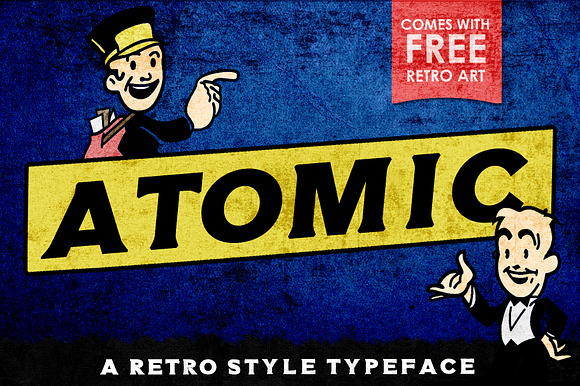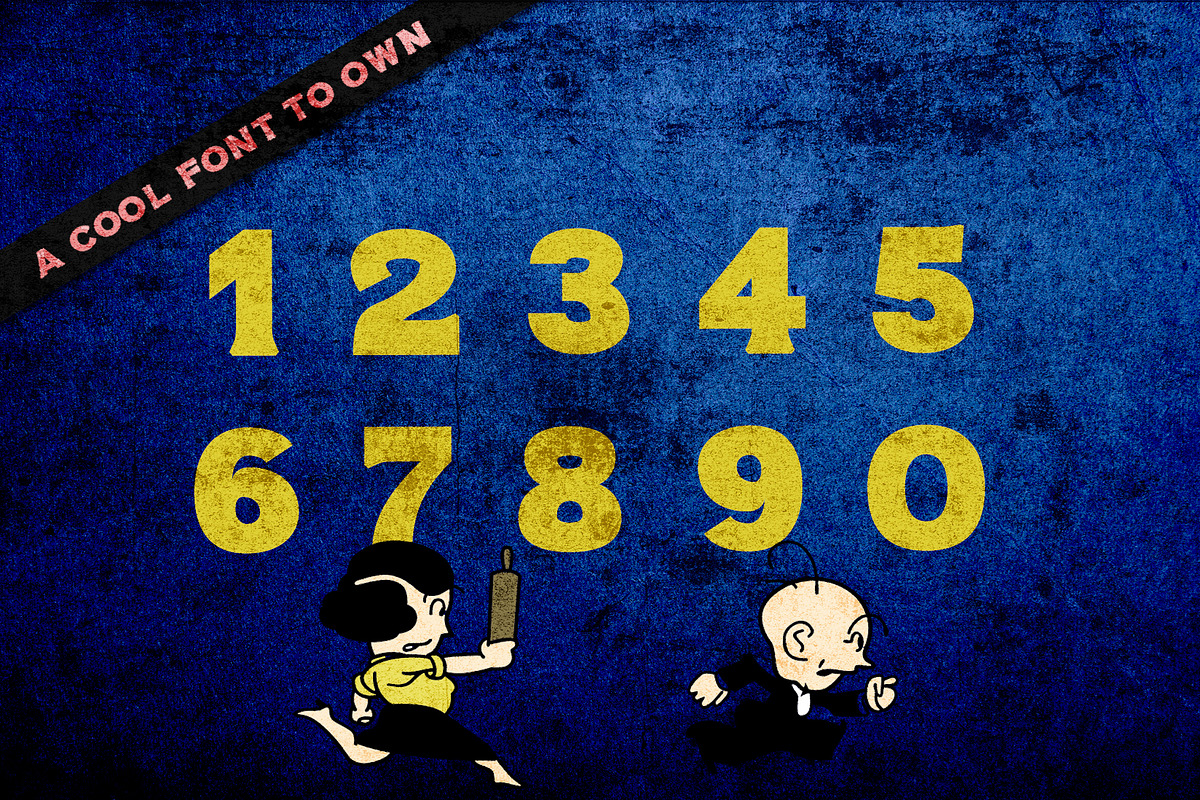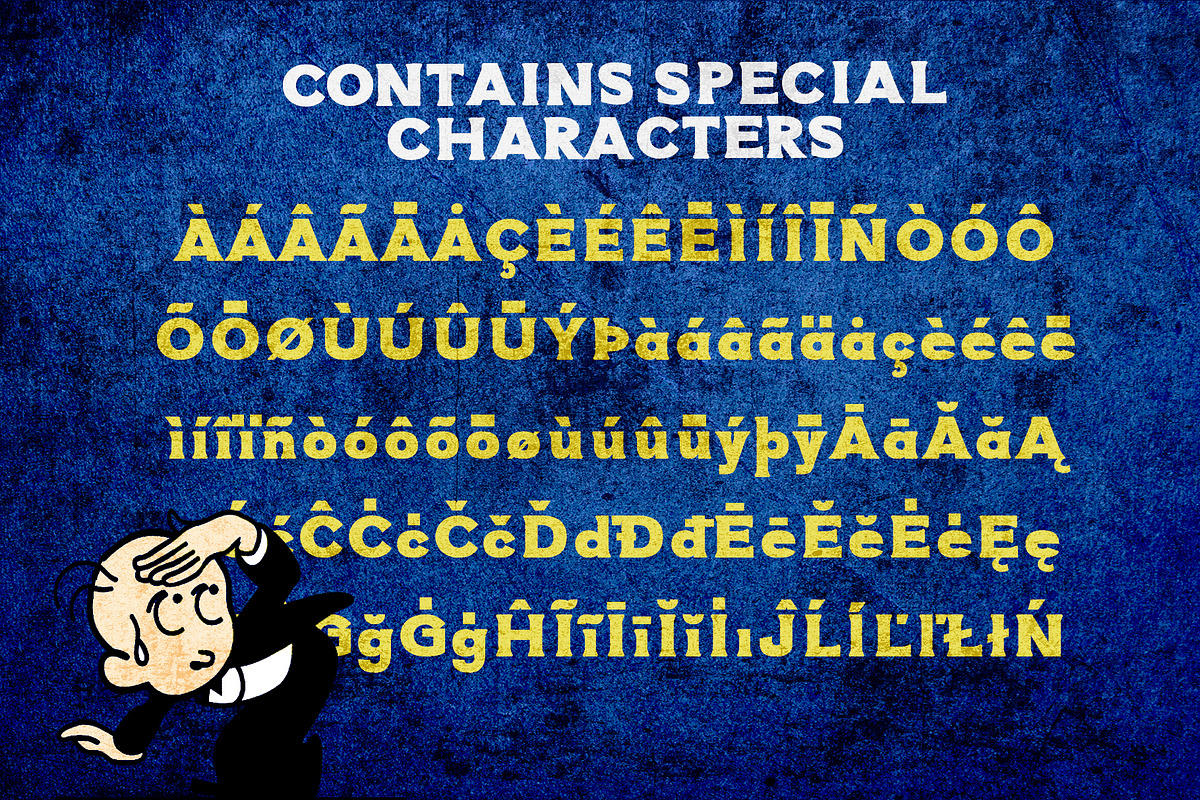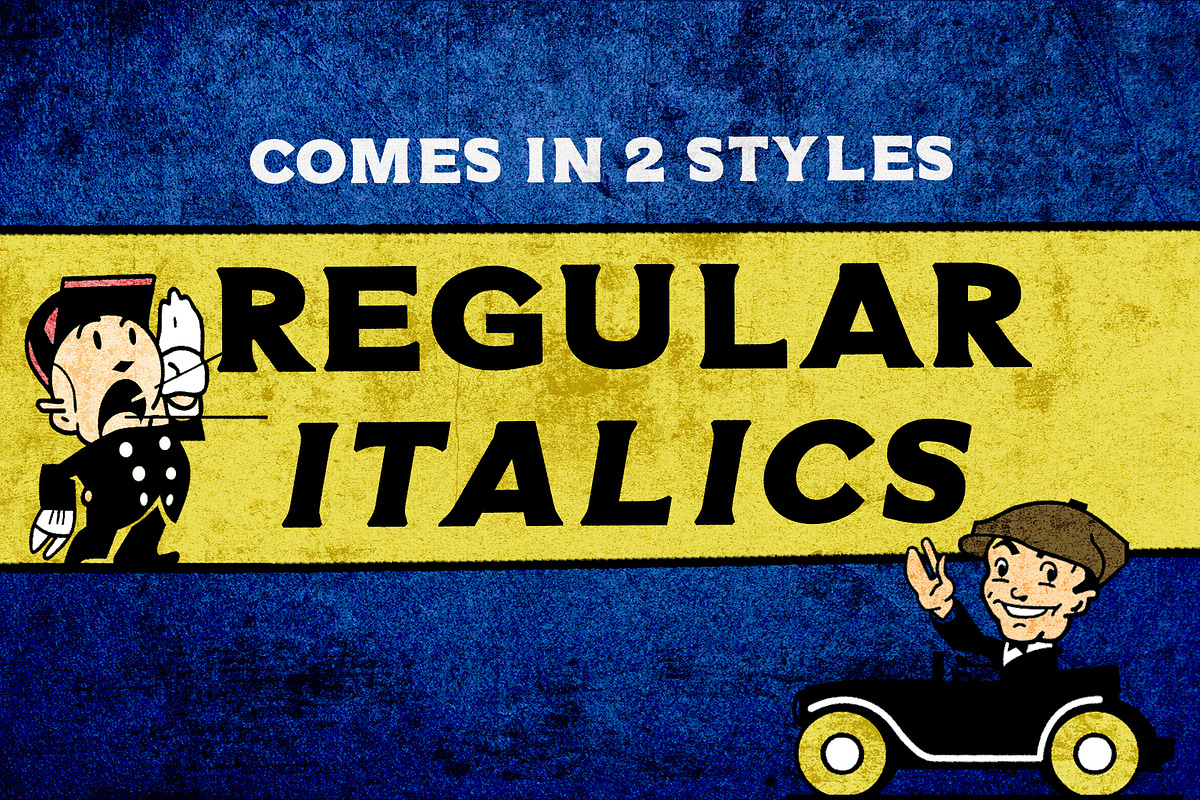
ATOMIC Typeface
Atomic is a unique and creative design that has been passionately handcrafted to give you a retro style typeface. It contains uppercase, lowercase, numbers, and special characters.
- ATOMIC regular
- ATOMIC regular-italic
ATOMIC Typeface by Dene Studios fits naturally into Branding, posters, packaging, typography.